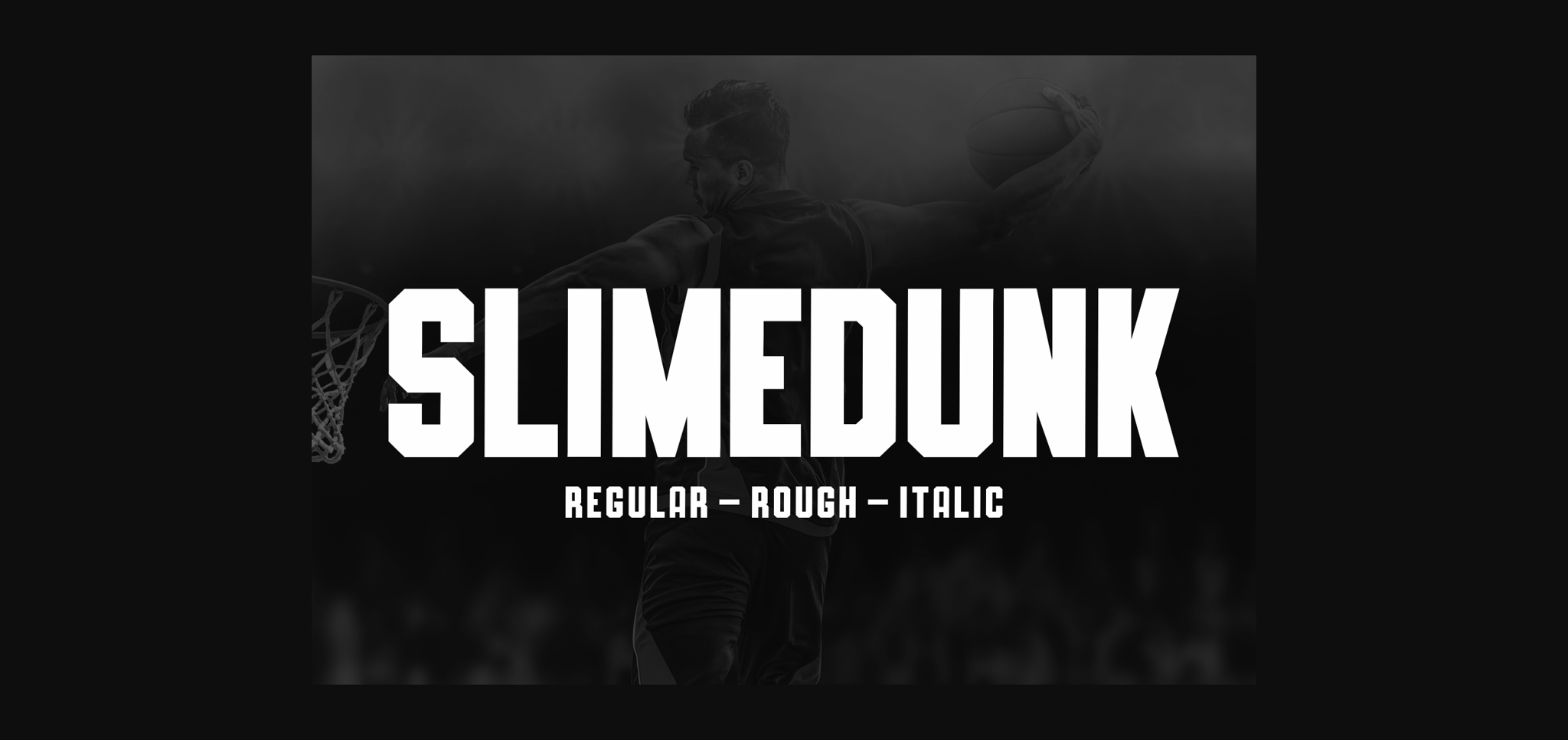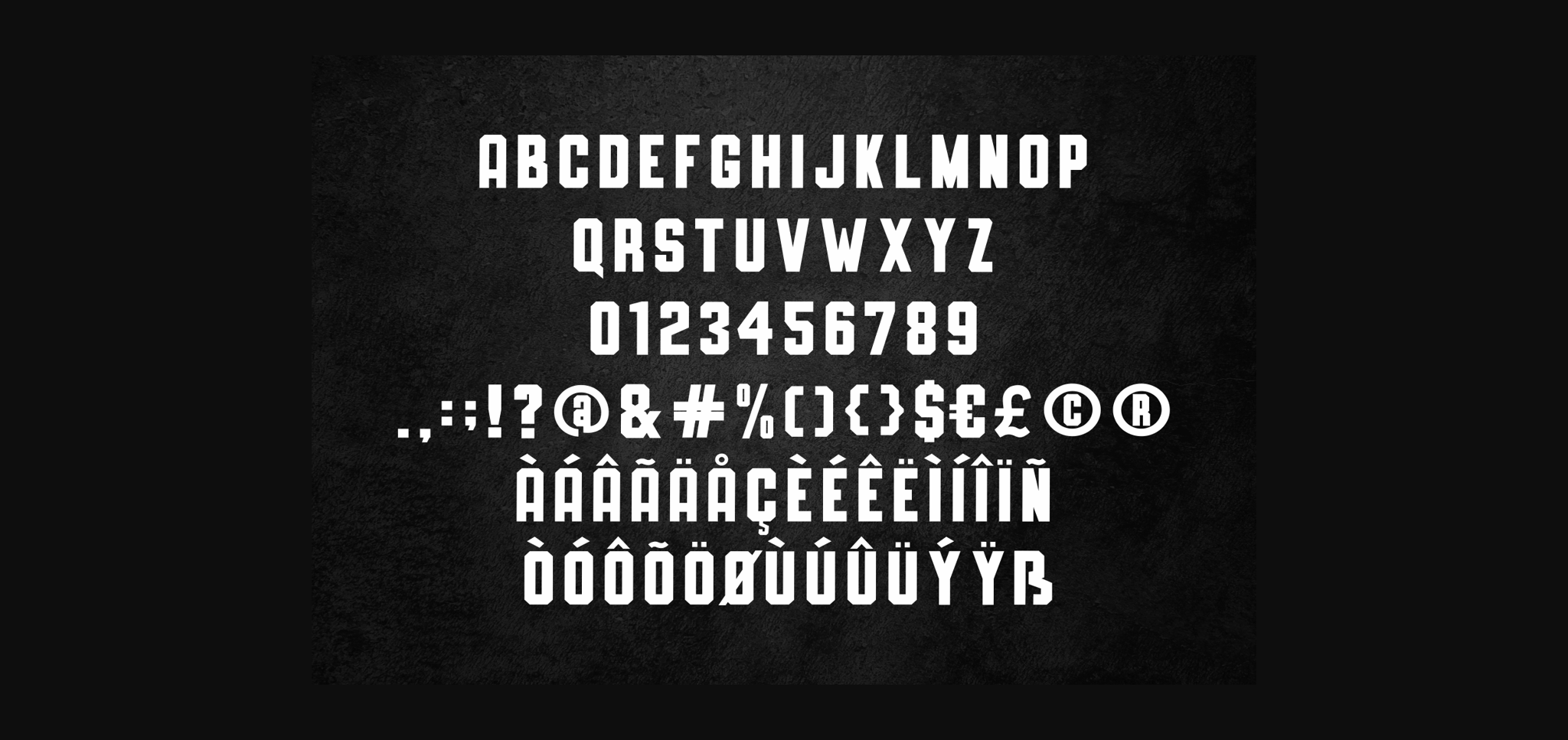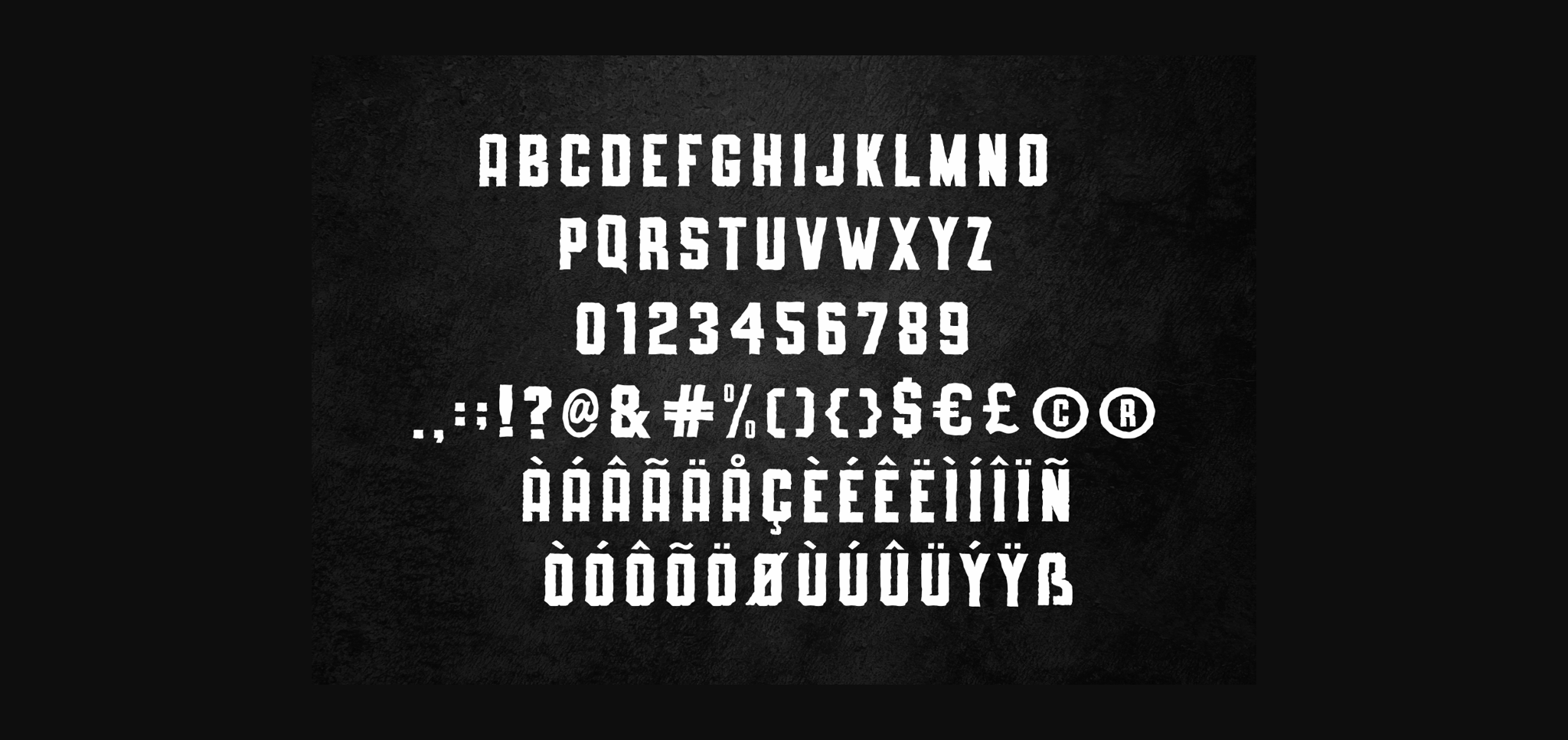
About Slimedunk Font
Slimedunk is a bold and classic sans serif font. This font would perfect for E-sport Logo, film poster, game, sport and any other projects.